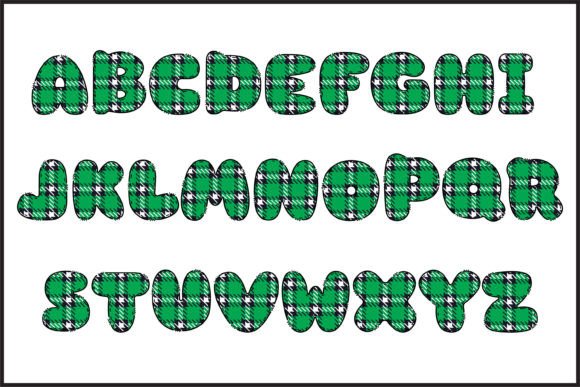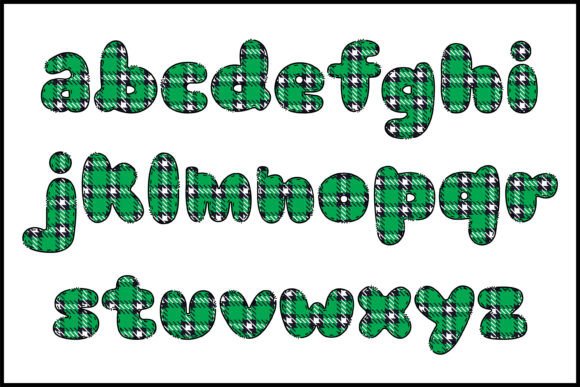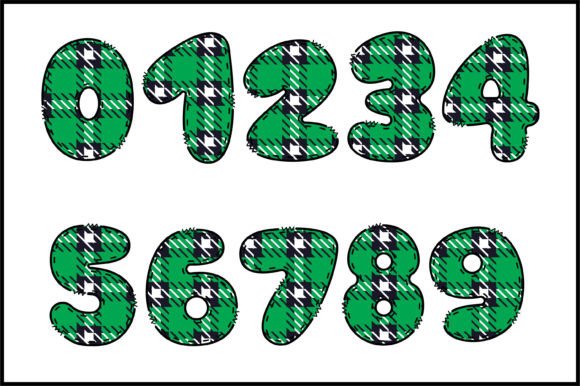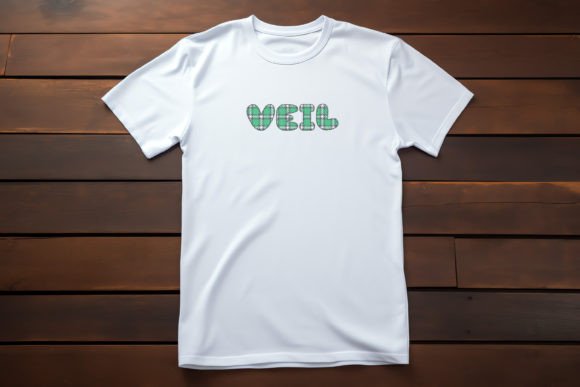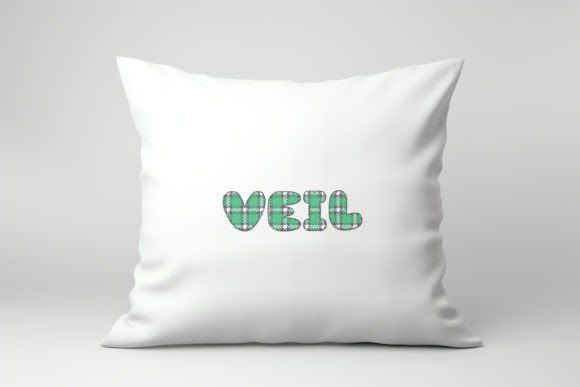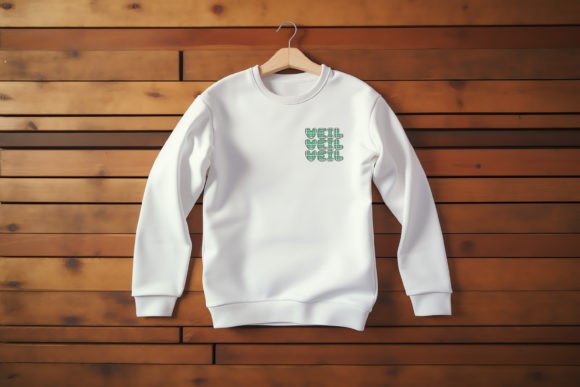
The Flannel Font: A Playful and Artistic Addition to Your Design Toolbox
I’ll never forget the time I was working on a children’s book design project, and I just couldn’t seem to find the right font. The client wanted something playful, yet easy to read, and I was determined to deliver. That’s when I stumbled upon the Flannel Font, and it quickly became my go-to for all sorts of creative projects. In this article, I’ll share my experience with this charming font, its features, and how to make the most of it in your designs.
An Honest Review of Flannel Font
- ✨ Whimsical and playful feel that’s perfect for children’s books, posters, and invitations
- ✅ Easy to read, even for young audiences
- 🎨 Available in both black and color versions, offering flexibility in design
While I adore the Flannel Font, there are a few things to keep in mind:
The Designer Inspiration Behind Flannel Font
The Flannel Font was inspired by the nostalgia of childhood and the joy of creative expression. Imagine a designer who grew up surrounded by handmade crafts, children’s book illustrations, and vintage typography. This font is a reflection of their love for whimsy, color, and playfulness.